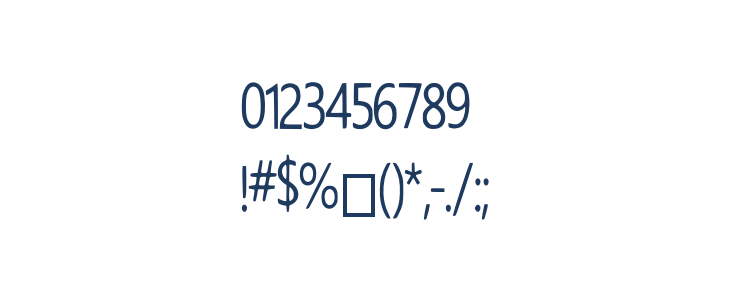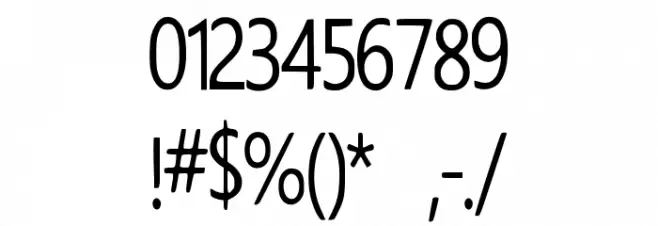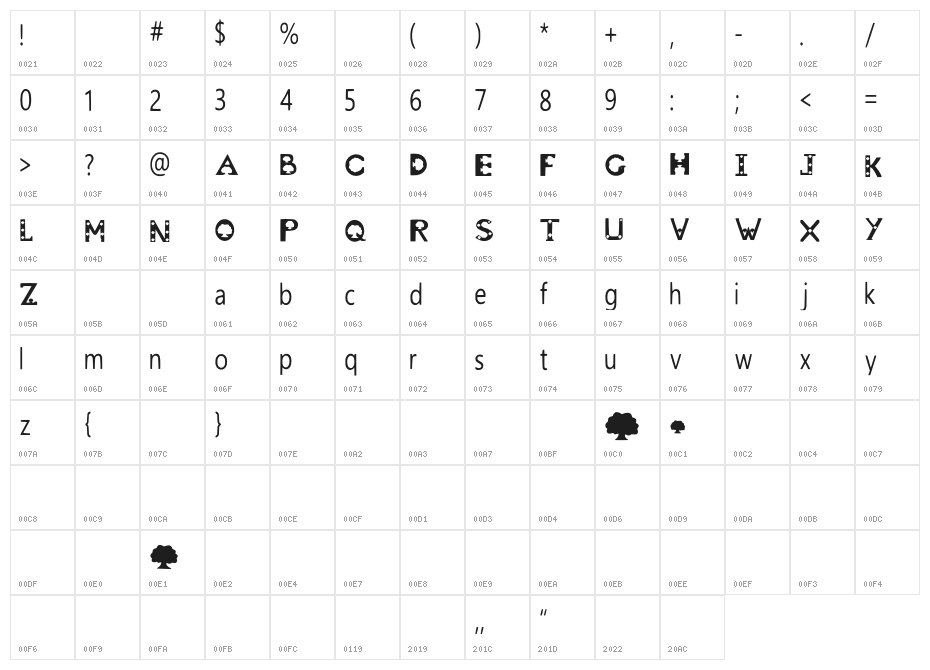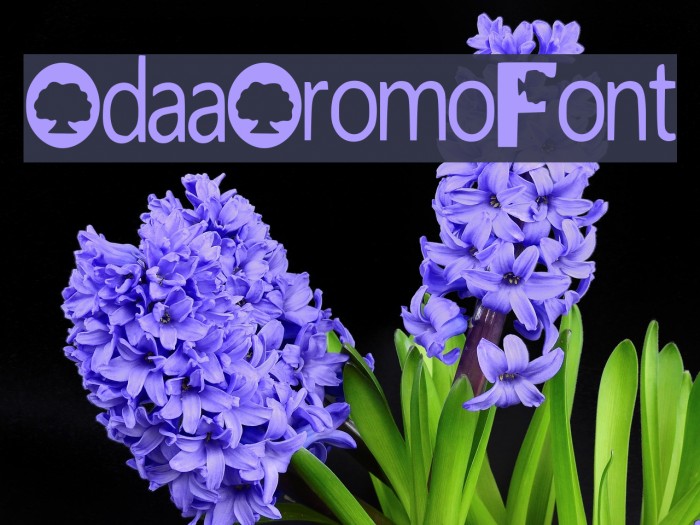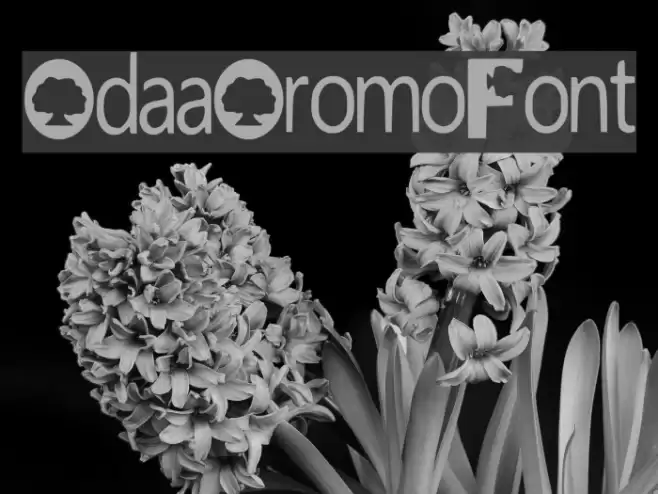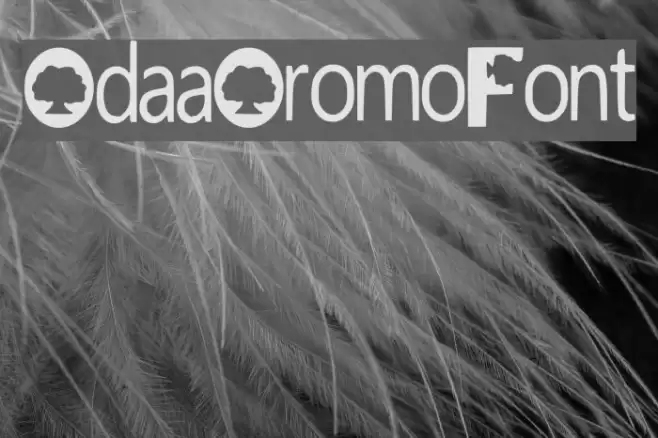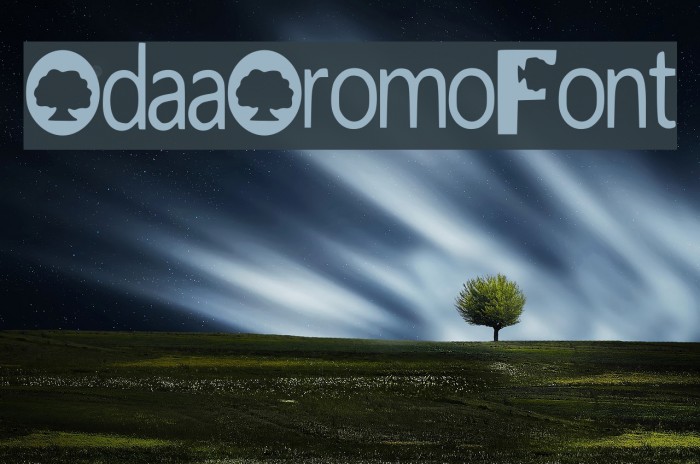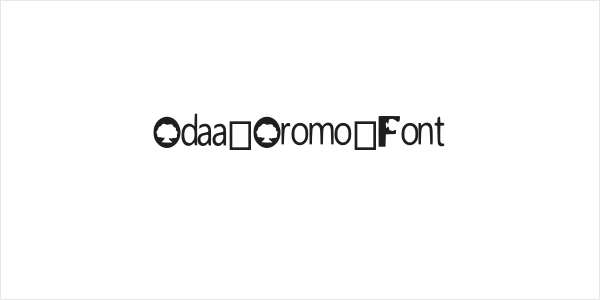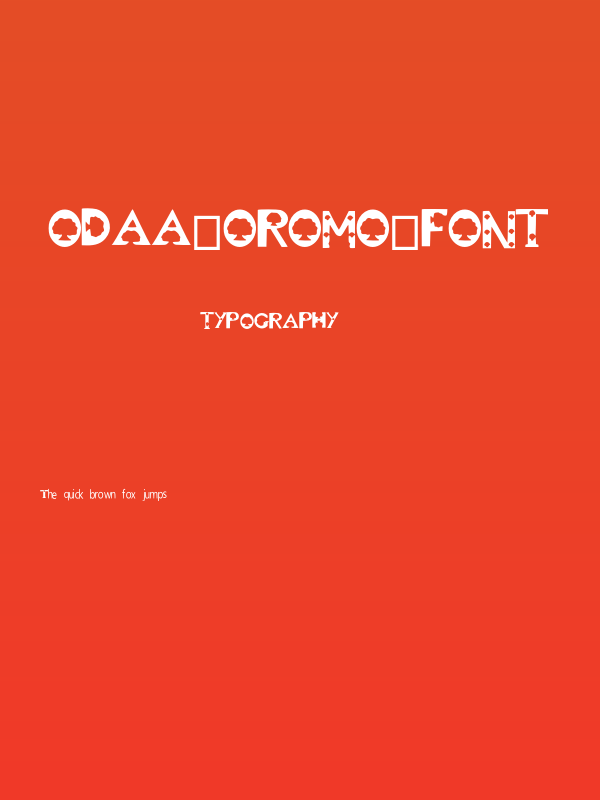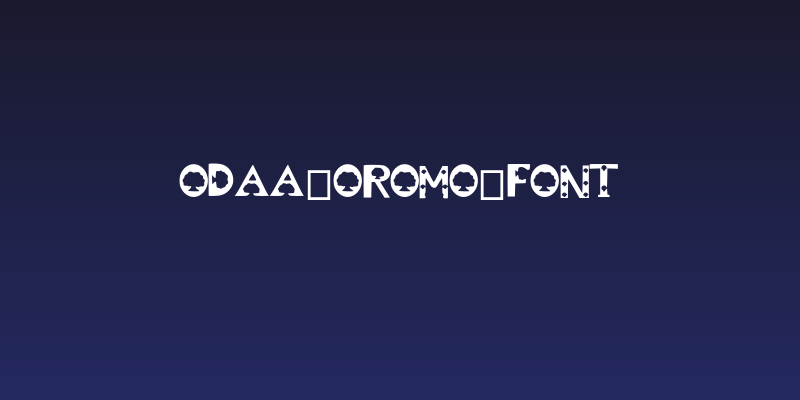
Odaa_Oromo_Font Font
Odaa_Oromo_Font Description
This font presents a unique blend of decorative and modern styles. The uppercase letters feature a bold, eye-catching design with intricate cut-out patterns, adding a playful and artistic touch. The lowercase letters are sleek and modern, offering a clean and minimalist appearance. The numerals are consistent with the lowercase style, ensuring readability and simplicity. Special characters maintain the overall aesthetic, providing a cohesive look across all elements. This font is versatile, combining decorative flair with modern simplicity, making it suitable for a variety of creative applications.